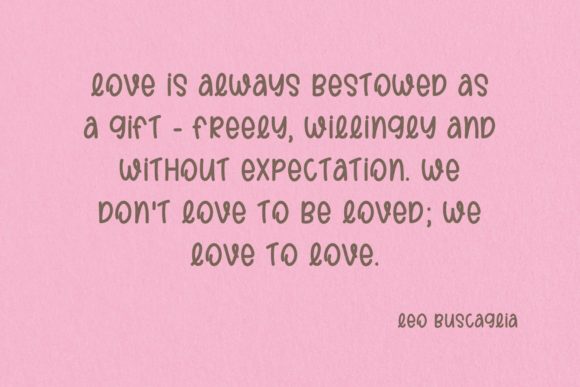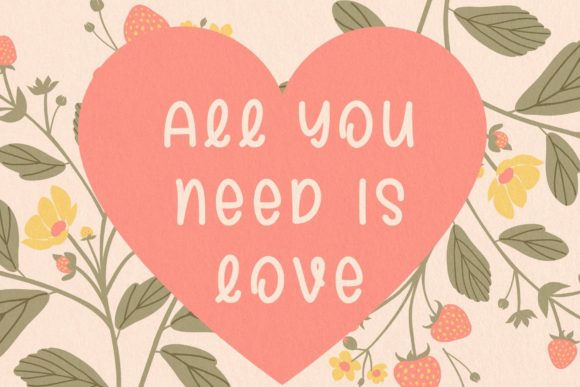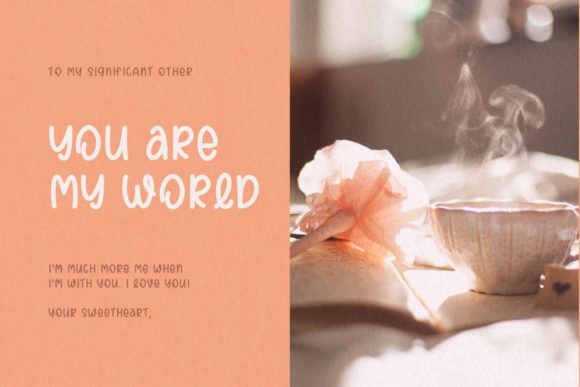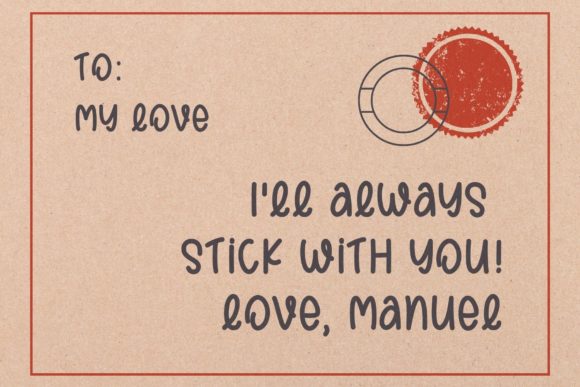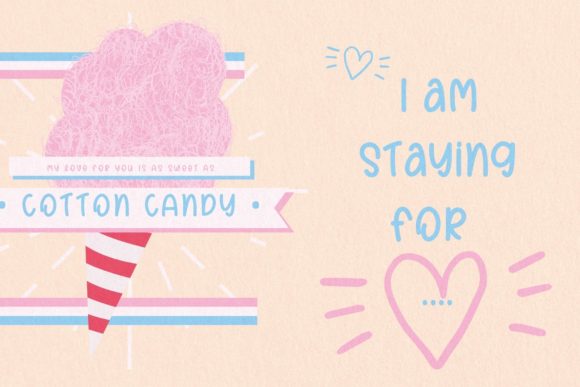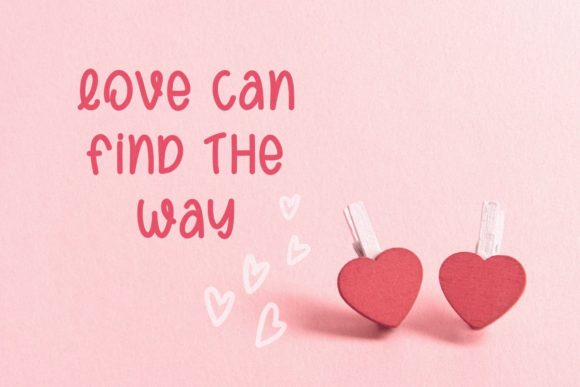
Falling Love Font: The Perfect Choice for Creative and Quirky Designs
Are you a designer or crafter looking for a font that embodies fun, quirkiness, and authenticity? Look no further than the Falling Love font. This enchanting handwritten font is designed to turn any creative idea into a true standout, making it perfect for a wide range of design projects.
The Characteristics of Falling Love Font
Falling Love font is a unique and captivating typeface that is sure to grab attention. Its handwritten style gives it a personal and organic feel, making it perfect for designs that require a touch of whimsy and personality. The font’s quirky and playful nature makes it ideal for use in a variety of creative projects, from invitations and greeting cards to branding and advertising materials.
Why Choose Falling Love Font?
There are many reasons why Falling Love font stands out from the crowd. Here are just a few:
- Unique and eye-catching: The Falling Love font is unlike any other font you’ll find. Its distinctive style is sure to make your designs stand out and grab attention.
- Handwritten with love: The font’s handwritten style gives it a personal and authentic feel that’s perfect for designs that require a touch of warmth and personality.
- Quirky and playful: The Falling Love font is perfect for designs that require a touch of whimsy and fun. Its quirky nature makes it ideal for use in creative projects that need to stand out.
- Authentic and genuine: The font’s authentic and genuine style makes it perfect for use in designs that require a personal touch.
How to Use Falling Love Font
The Falling Love font is versatile and can be used in a wide range of design projects. Here are just a few ideas to get you started:
- Invitations and greeting cards: The font’s playful and whimsical nature makes it perfect for use in invitations and greeting cards.
- Branding and advertising: The font’s unique and eye-catching style makes it ideal for use in branding and advertising materials.
- Social media graphics: The font’s quirky and playful nature makes it perfect for use in social media graphics and posts.
- Packaging and labels: The font’s authentic and genuine style makes it perfect for use in packaging and labels.
Tips for Working with Falling Love Font
Here are a few tips to keep in mind when working with the Falling Love font:
- Use it sparingly: While the font is eye-catching and playful, it can be overwhelming if used too much. Use it sparingly to add a touch of whimsy to your designs.
- Pair it with other fonts: The Falling Love font pairs well with other fonts, especially sans-serif fonts. Experiment with different pairings to find the one that works best for your design.
- Experiment with colors: The font’s playful nature makes it perfect for use with bright and bold colors. Experiment with different color combinations to find the one that works best for your design.
The Falling Love font is a unique and captivating typeface that’s perfect for designers and crafters looking to add a touch of whimsy and personality to their designs. Its quirky and playful nature makes it ideal for use in a wide range of creative projects, from invitations and greeting cards to branding and advertising materials. With its authentic and genuine style, the Falling Love font is sure to turn any creative idea into a true standout.